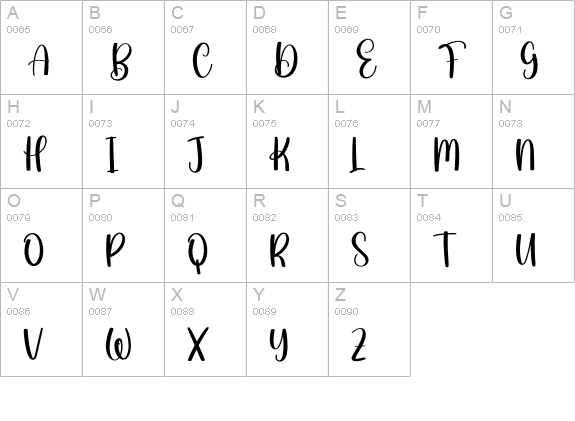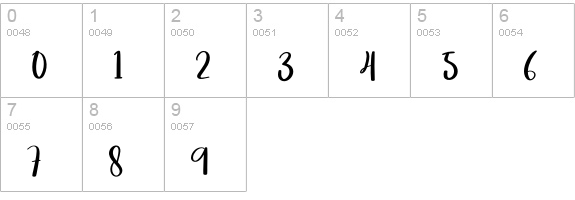
Introducing Rain font, a modern and sleek typeface that is perfect for adding a touch of elegance to your designs. This font features clean lines and a contemporary style that is sure to elevate any project. The Rain font is versatile and can be used for a variety of purposes, whether you're designing a logo, creating a poster, or crafting a website.